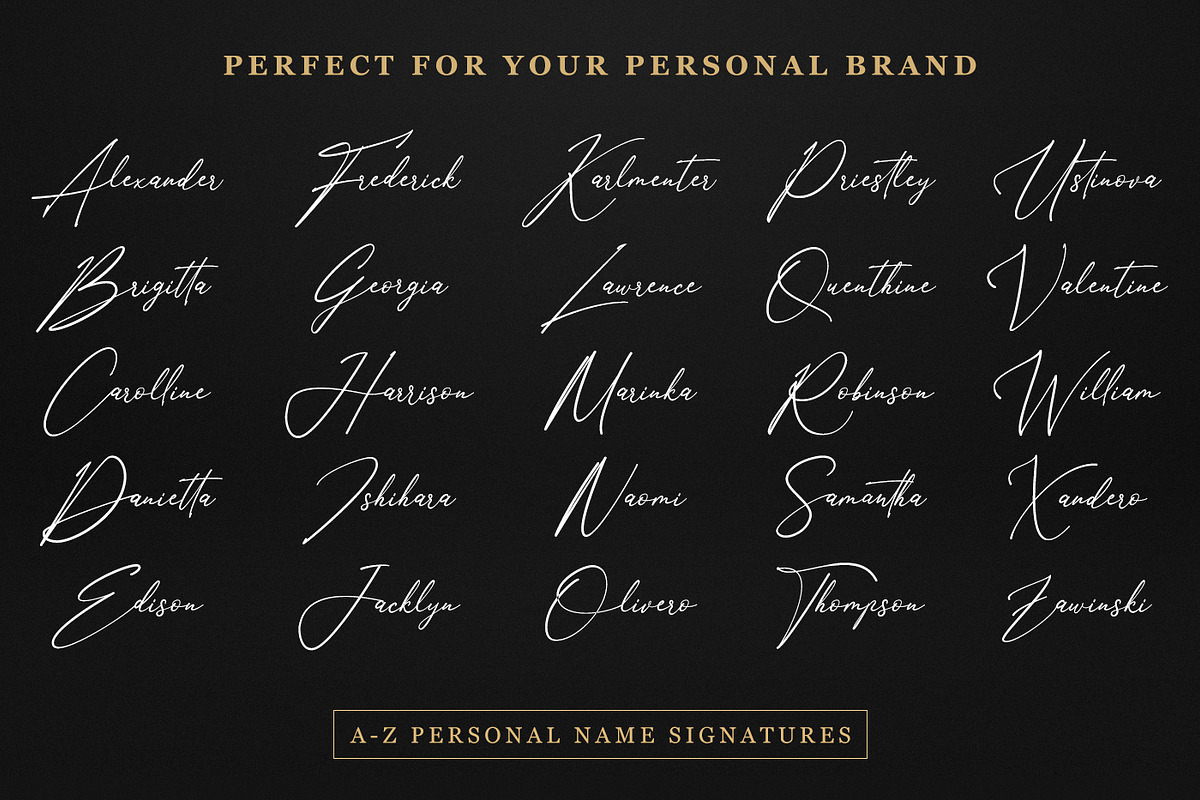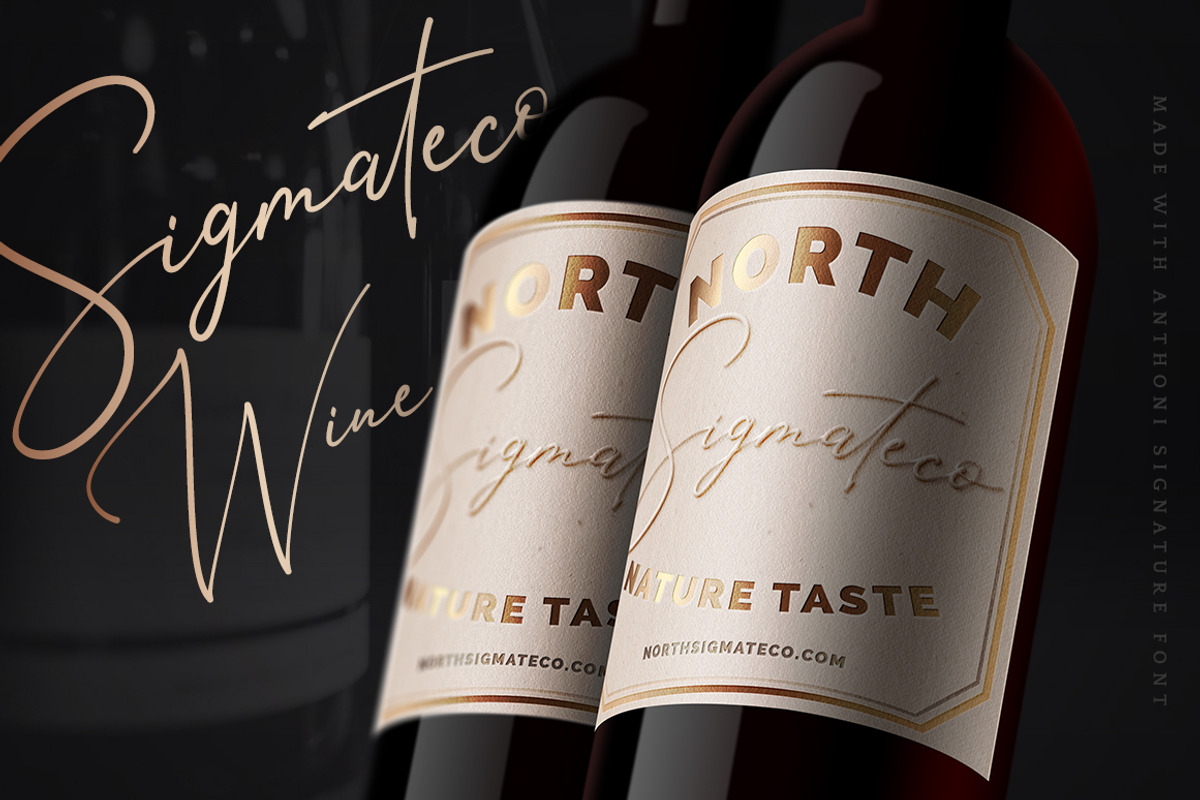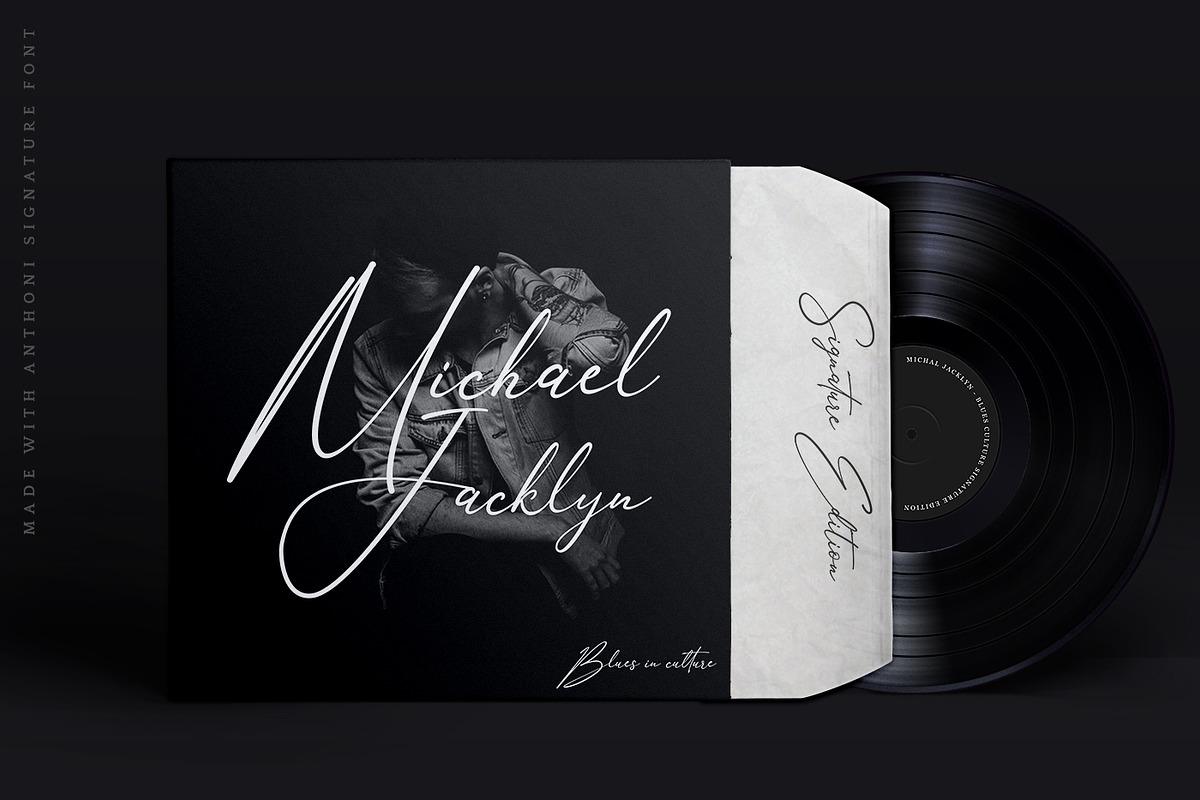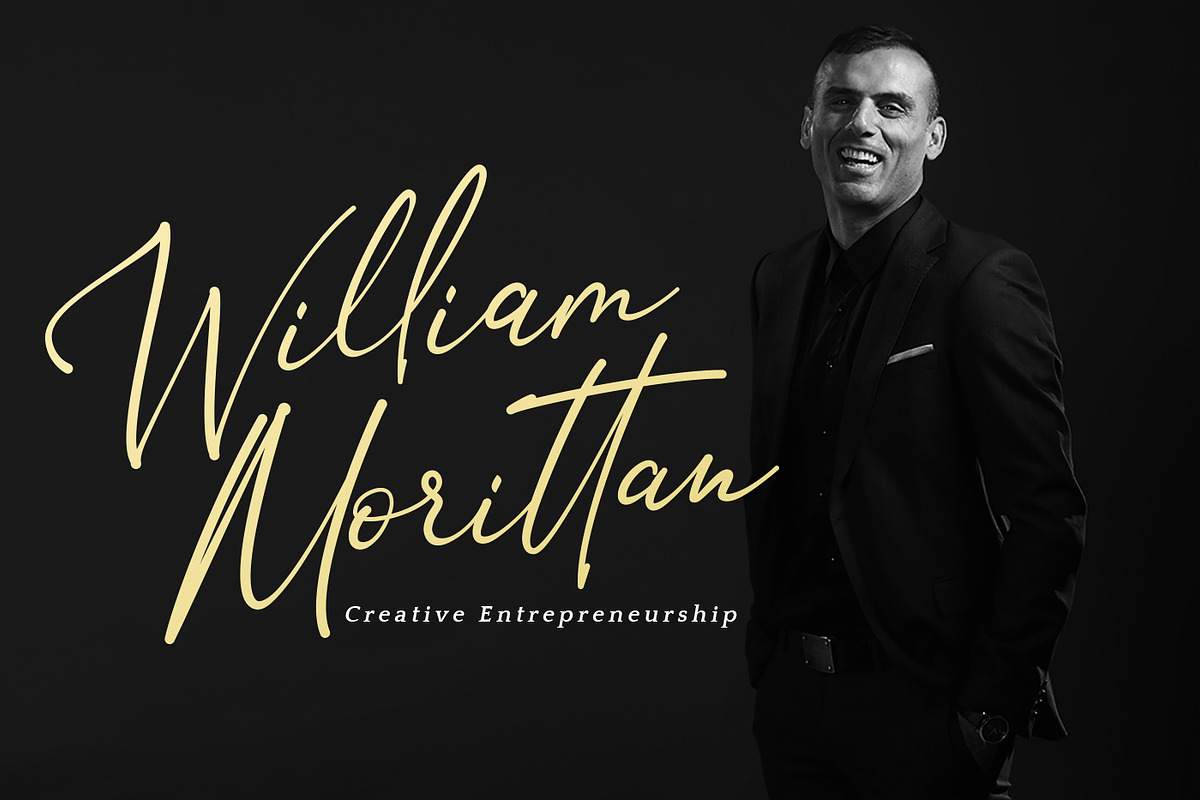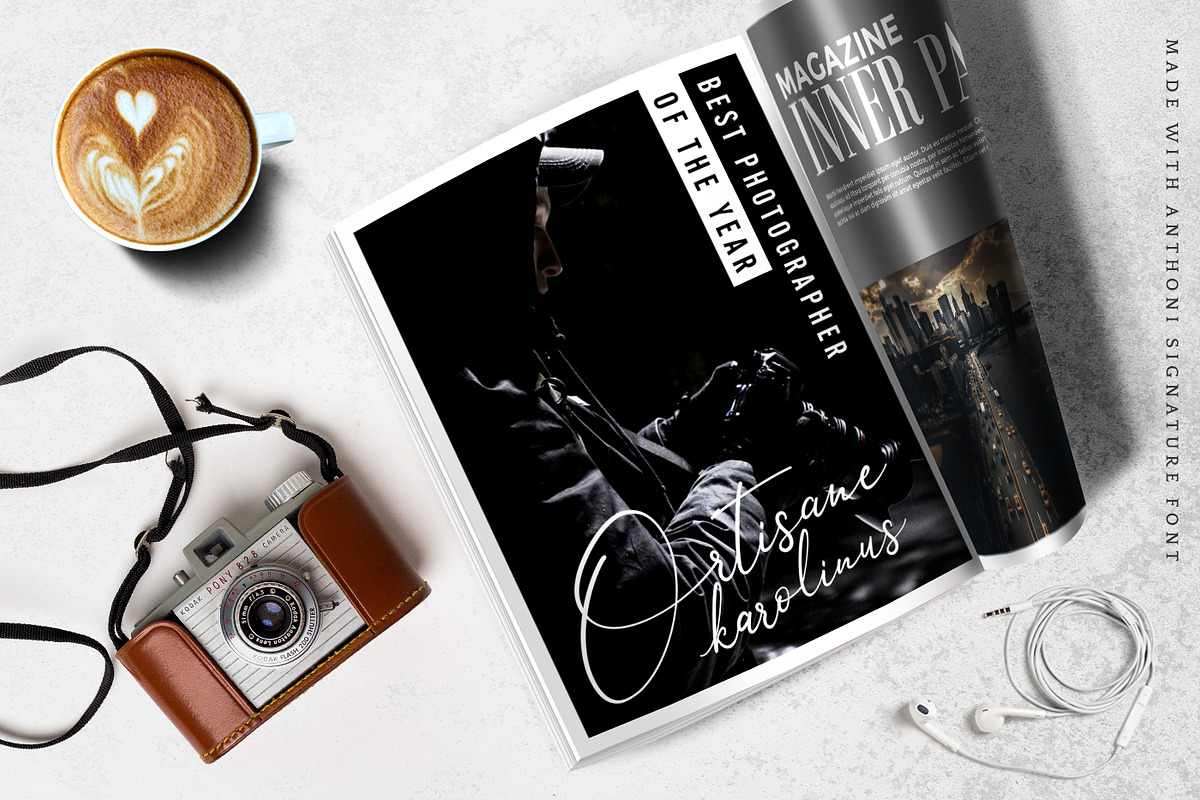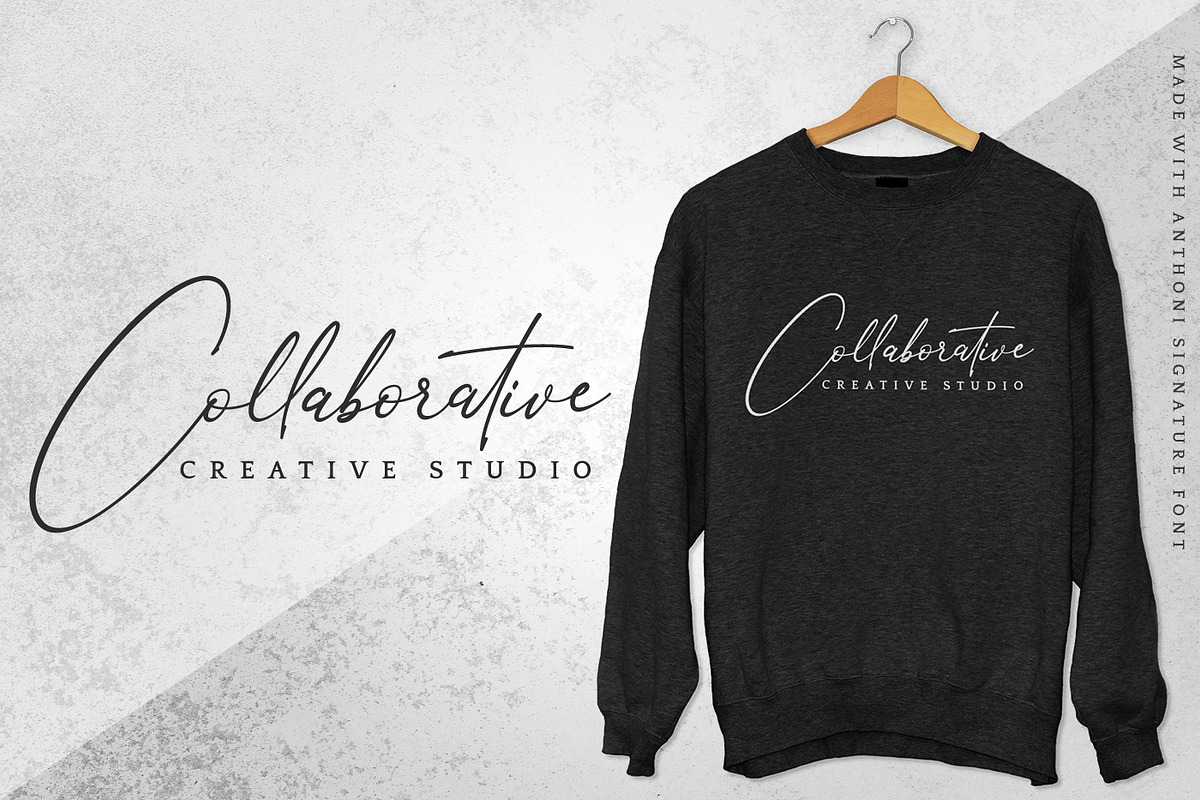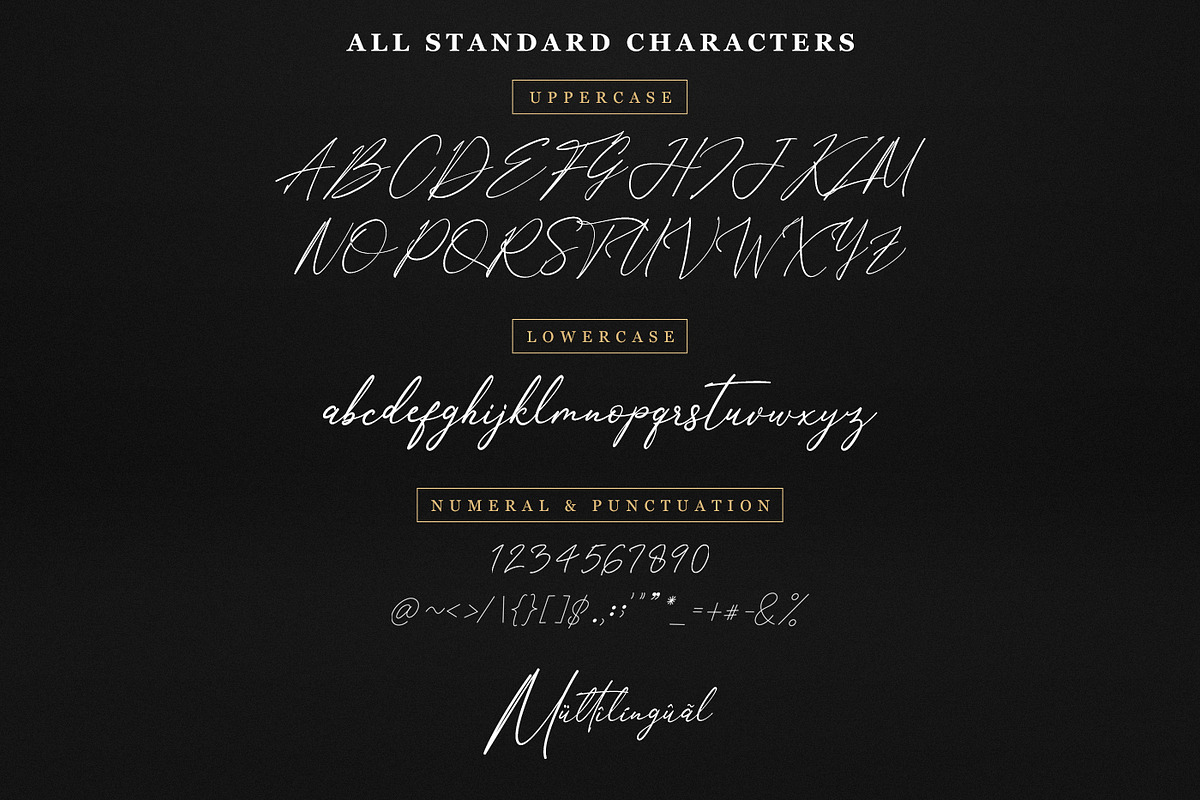
Anthoni Signature Script Font
Anthoni Signature is a handwritten signature script with a natural & stylish flow. This collection of scripts is perfect for personal branding.
Anthoni Signature Font is perfect for many different project such as logos & branding, invitation, stationery, wedding designs, social media posts, advertisements, product packaging, product designs, label, photography, watermark, special events or anything.
Ton of glyphs (include Uppercase, Lowercase, Numerals & Punctuations, Ligature, Alternate, and Swashes)